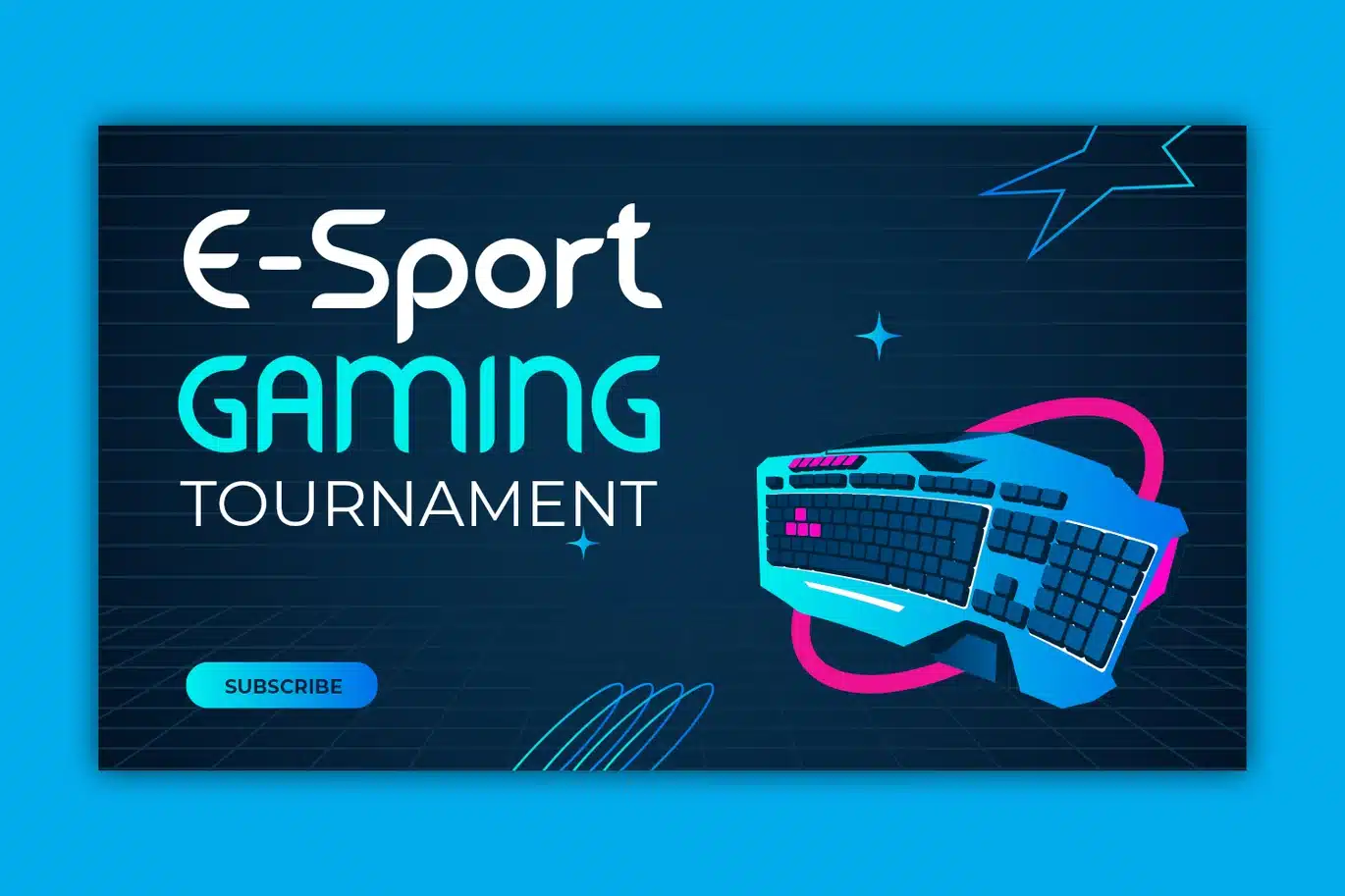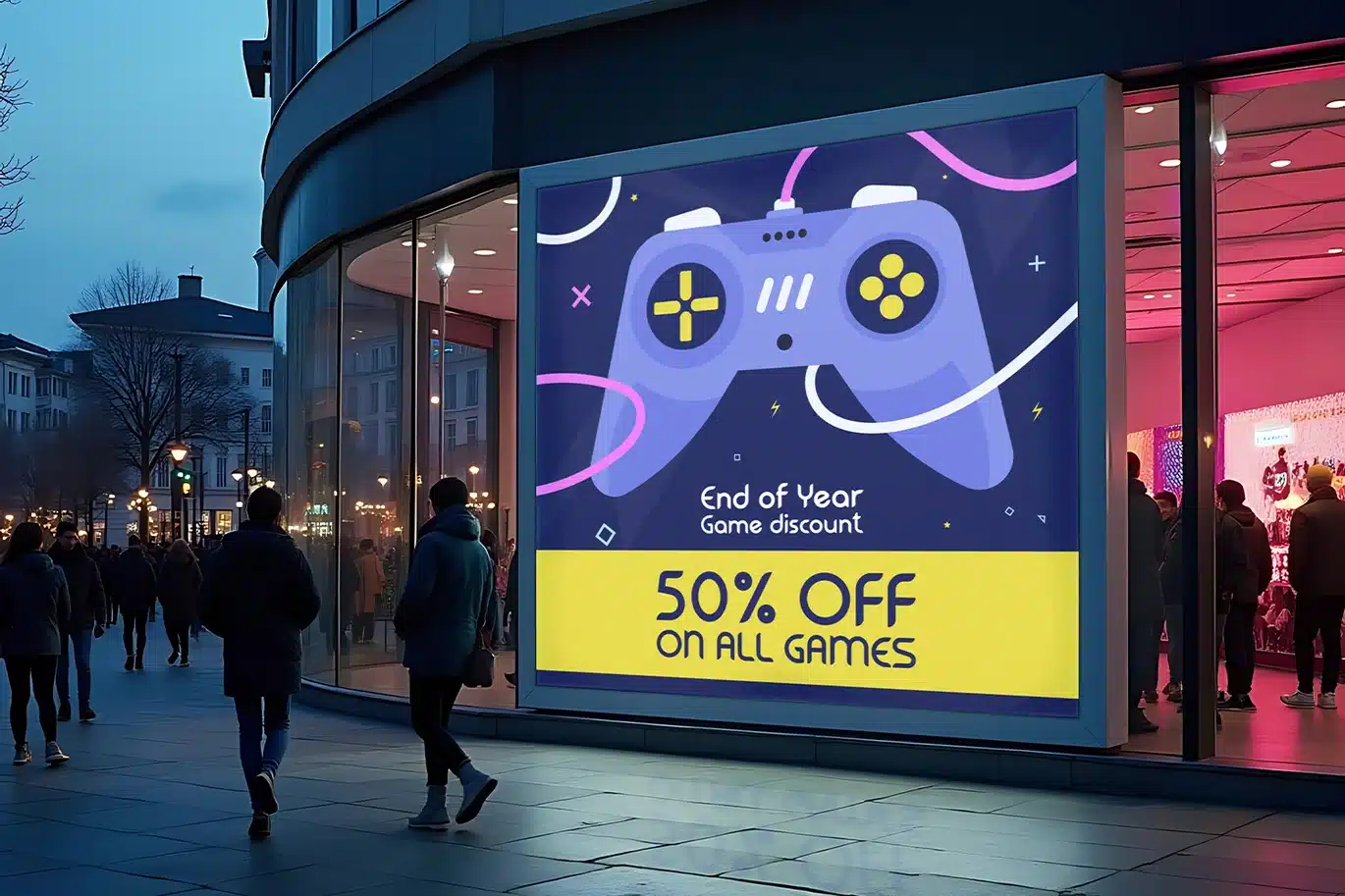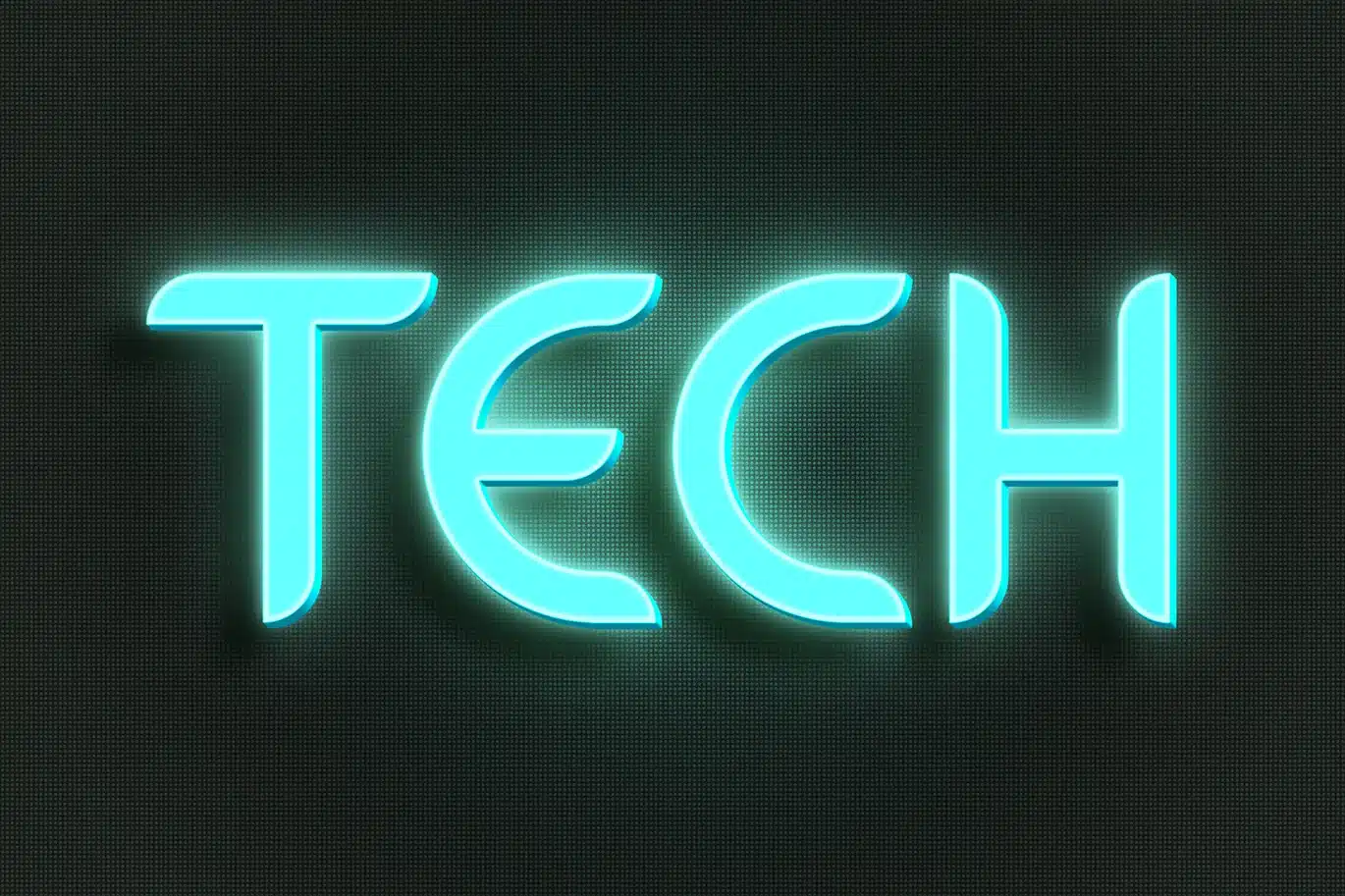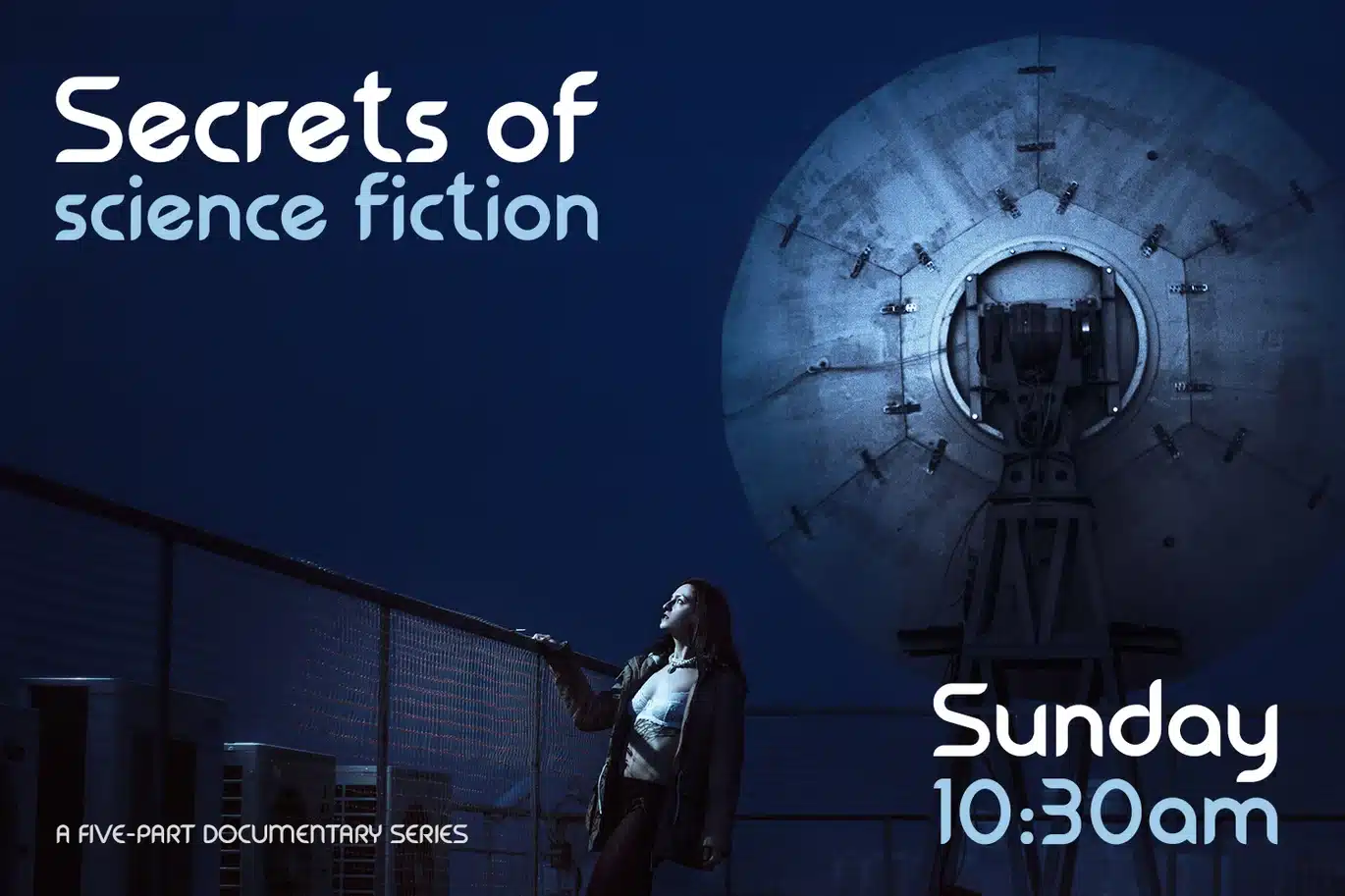
Novaris – Futuristic Geometric Font
Novaris - Sci-Fi Sans Serif Font
Novaris is a premium, elegant, and highly futuristic sans-serif font. Featuring a unique blend of smooth, wide curves and sharp, intelligent geometric cuts, it delivers a high-quality, ultra-modern aesthetic. This luxury sci-fi typeface is the perfect choice for cutting-edge technology projects, space-themed designs, e-sports branding, gaming interfaces, modern logo design, and streaming graphics. Novaris brings a premium, high-tech atmosphere to any digital or print project, ensuring your typography stands out with absolute precision and elegant futuristic appeal.
- Unique letterforms